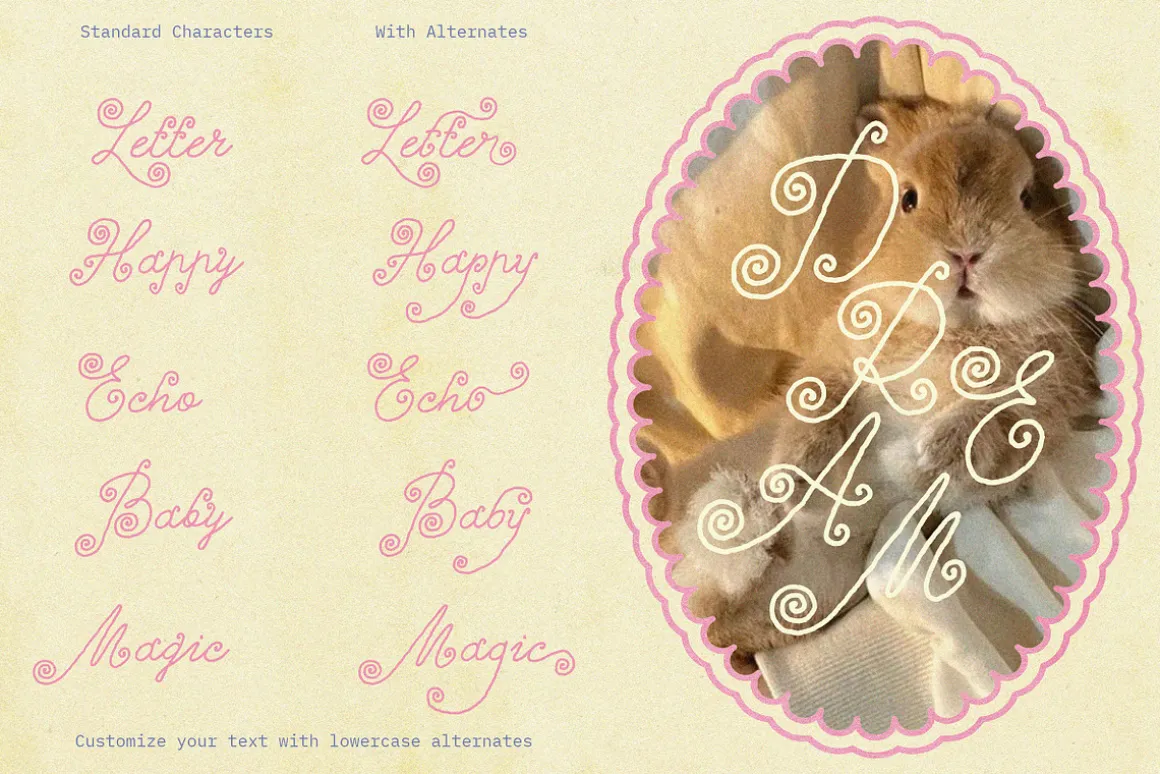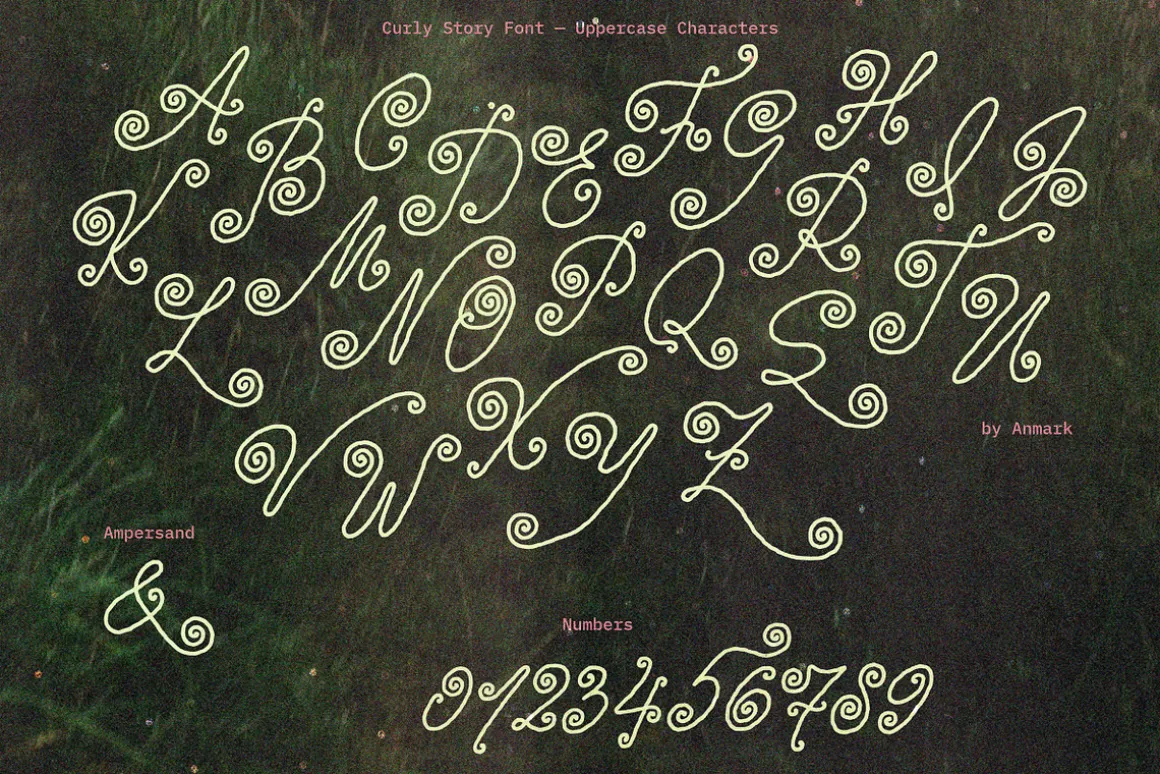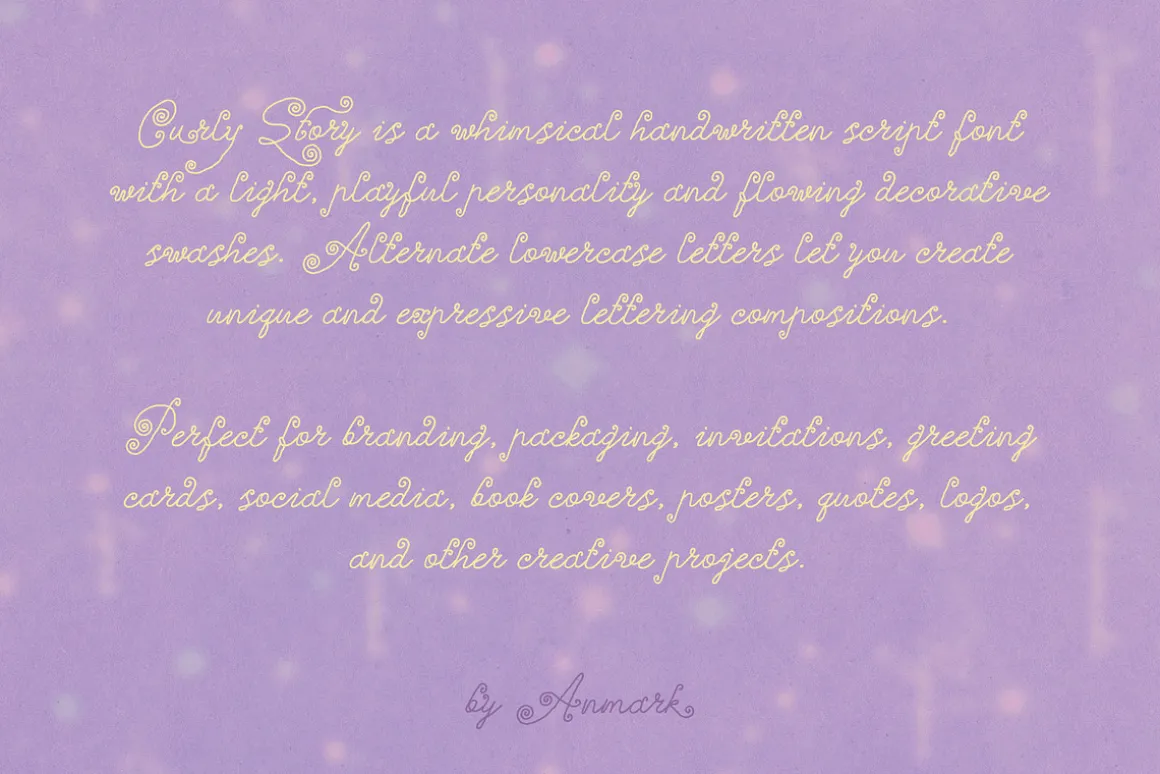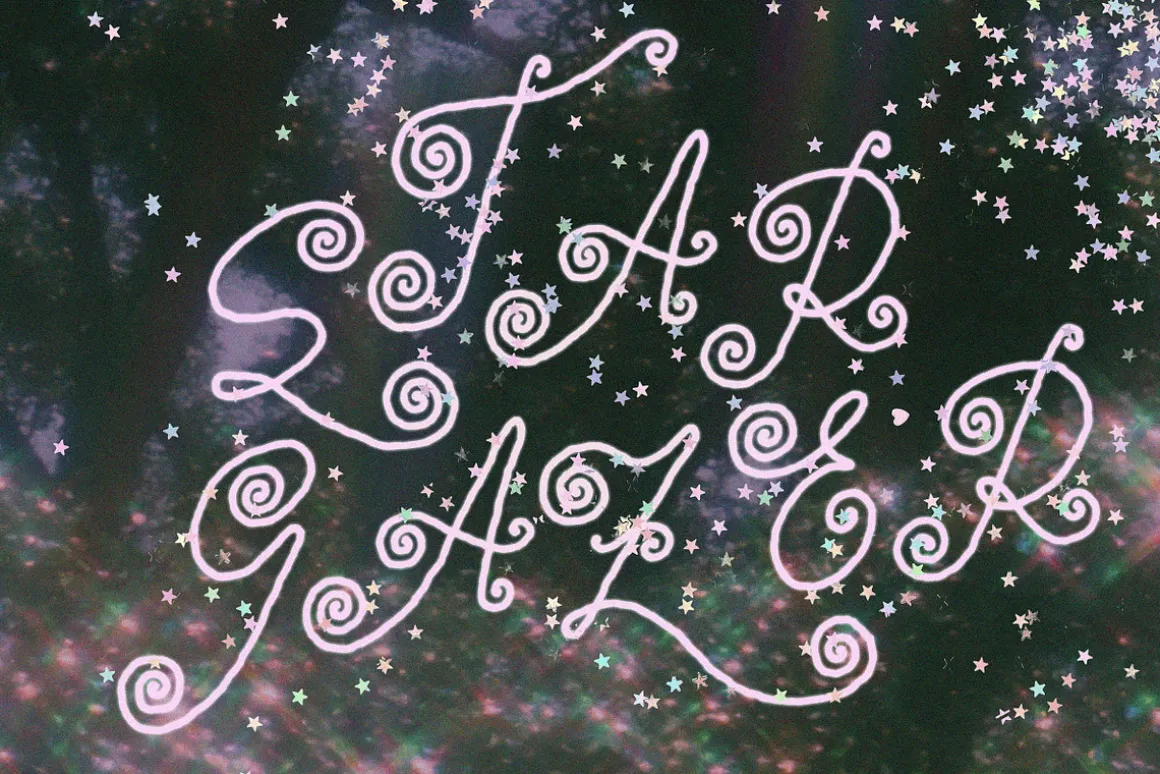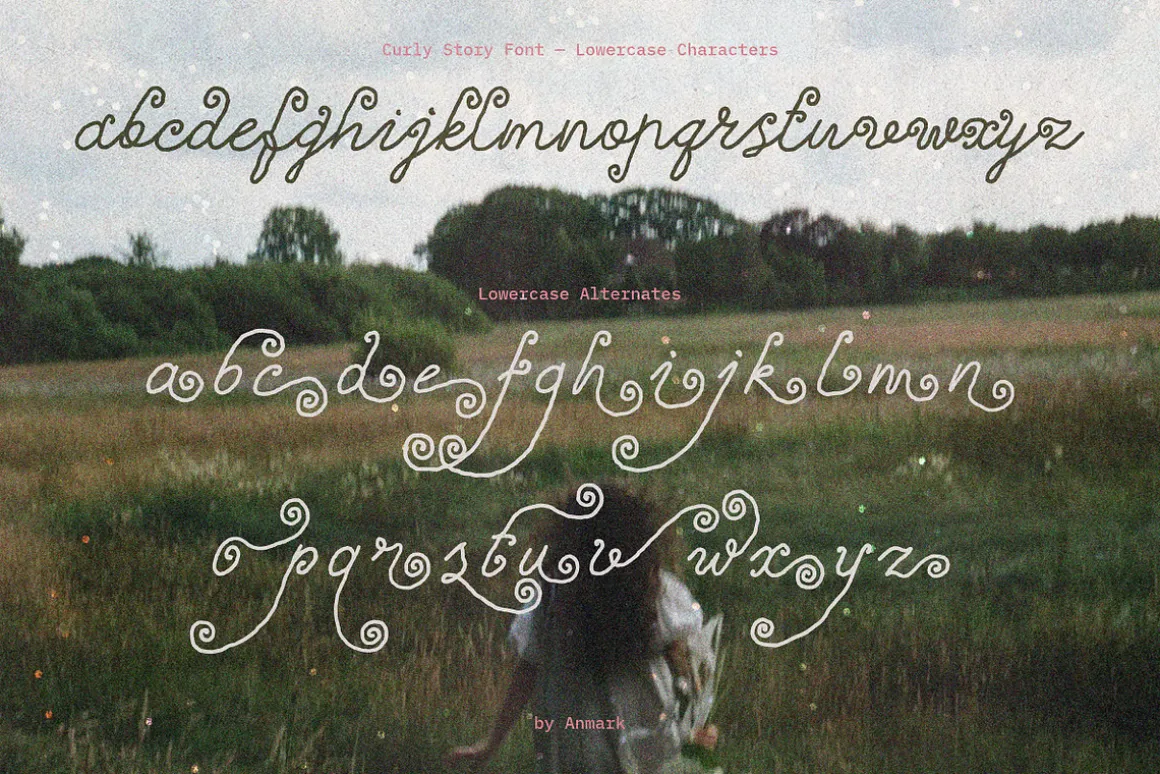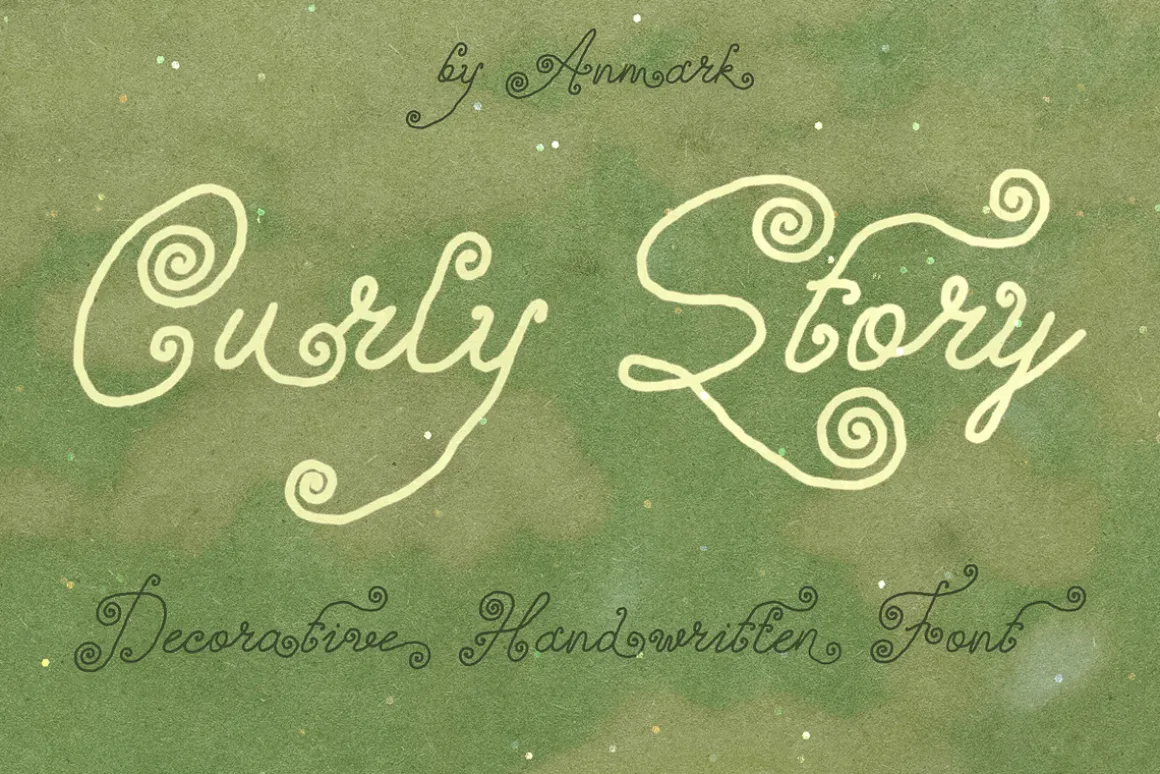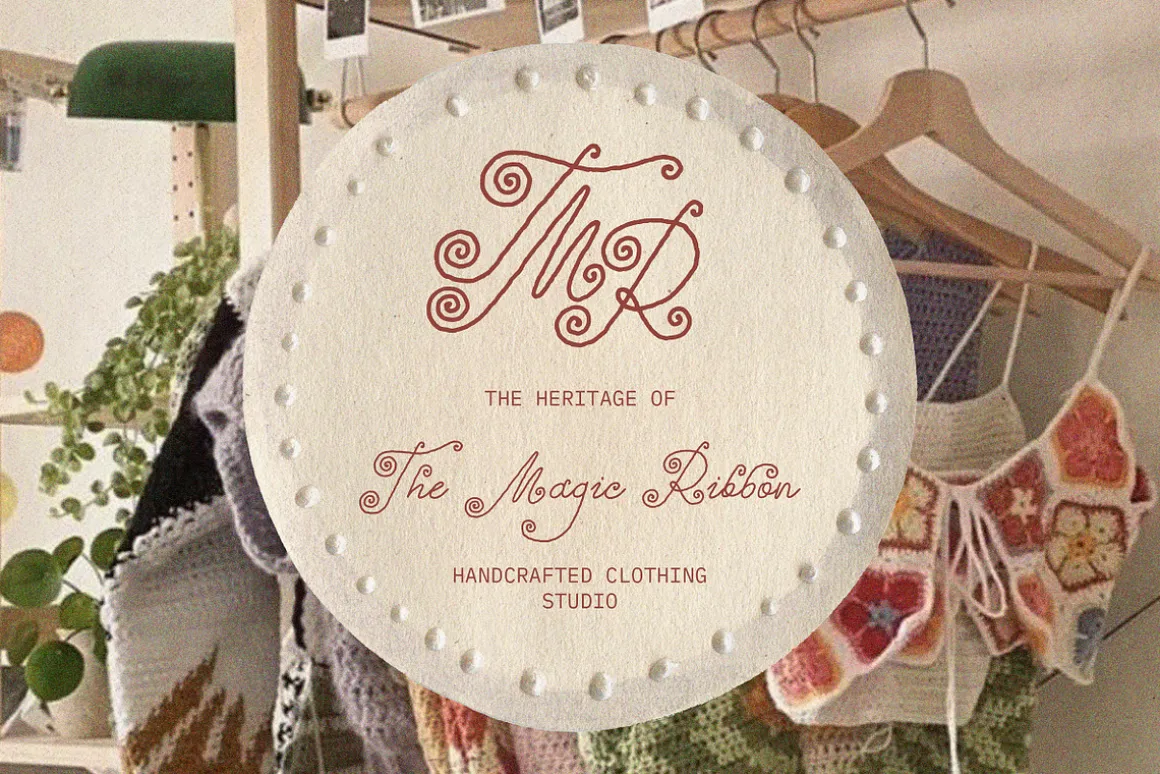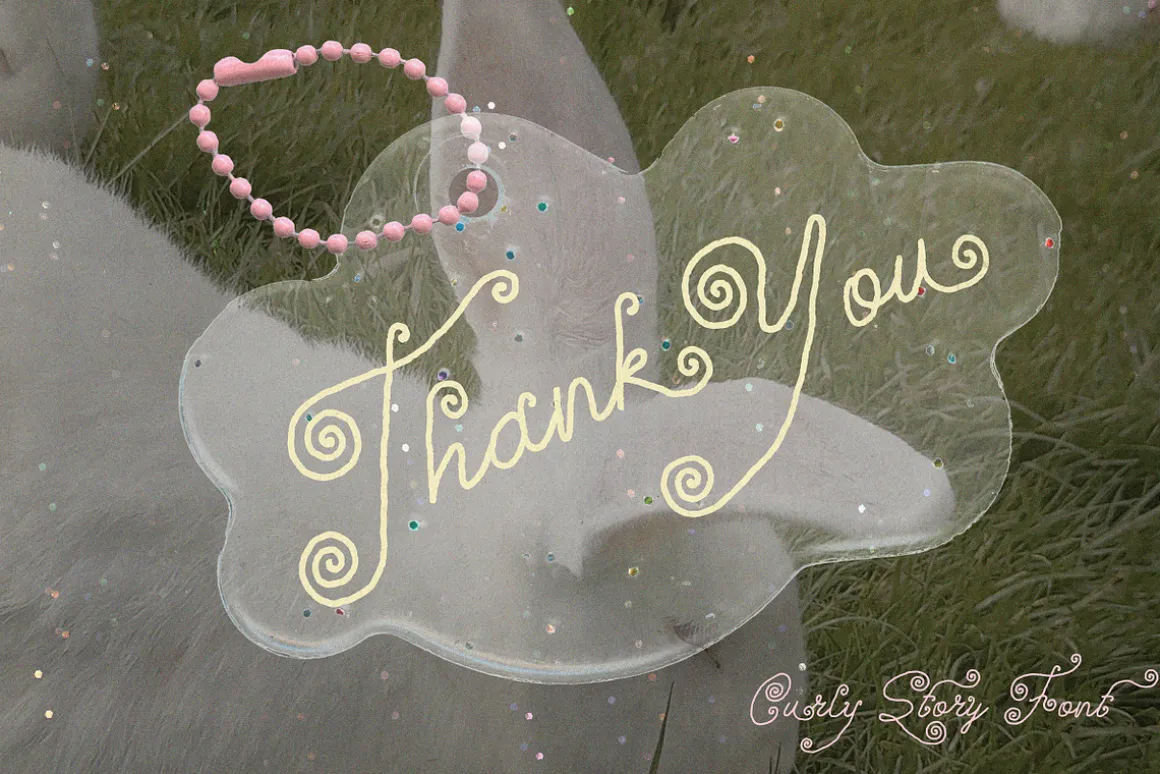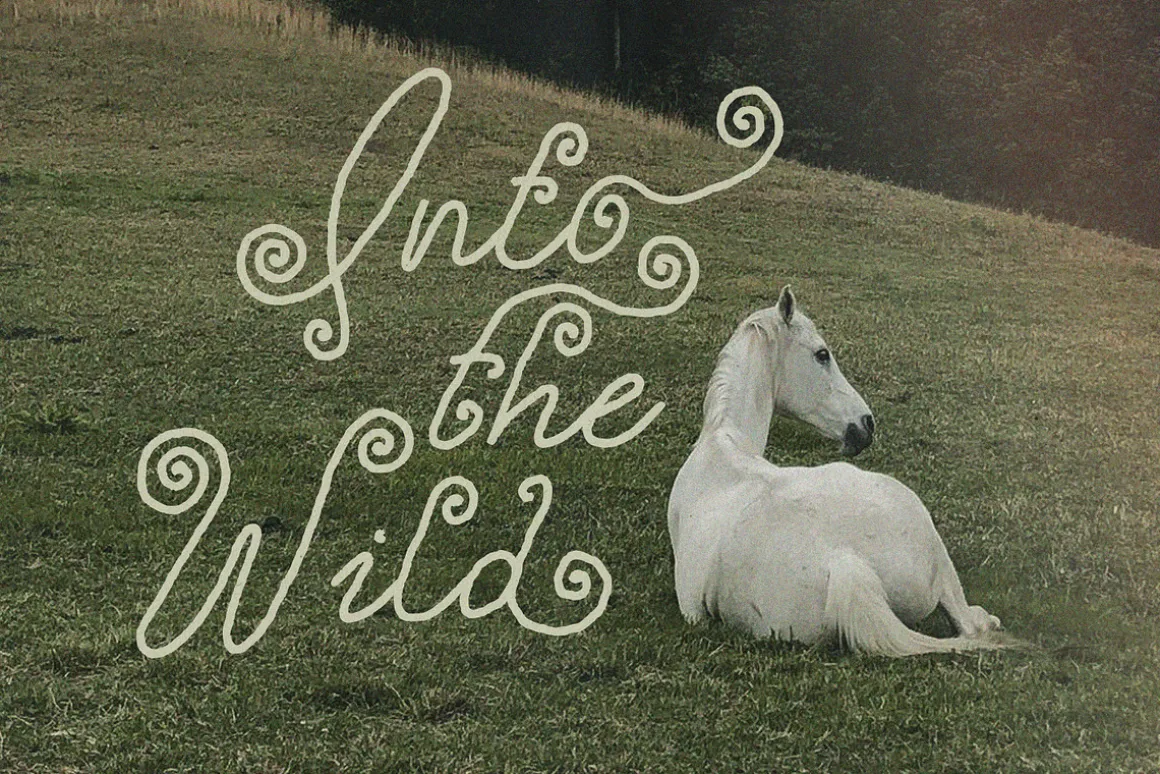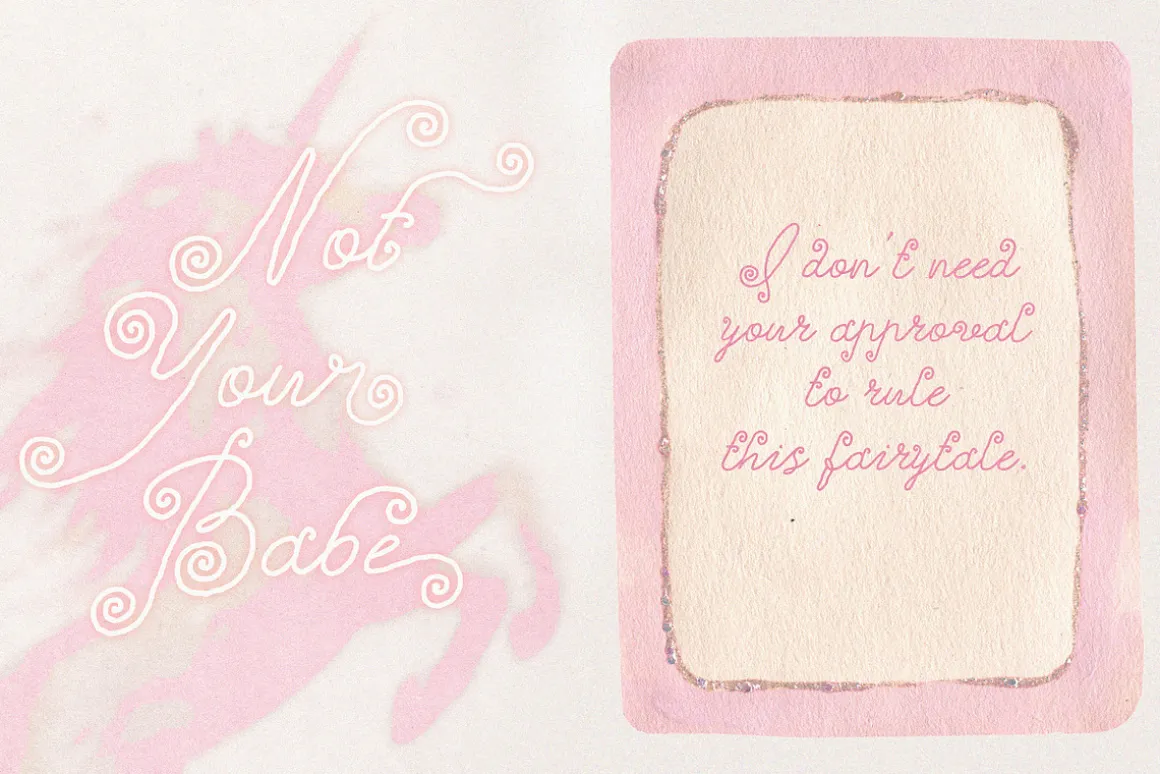
Curly Story is a whimsical handwritten script font with flowing curves, playful swashes, and charming decorative details. Its soft shapes and elegant curls create a unique lettering style that feels light, expressive, and full of personality.
Designed with a playful approach, Curly Story includes alternate lowercase characters that allow you to create more dynamic and personalized text compositions. Mix different letterforms to give each word its own character and create beautiful handcrafted lettering.
Perfect for wedding invitations, branding, logos, monograms, packaging, greeting cards, social media designs, quotes, posters, and other creative projects where a unique handwritten style is needed.